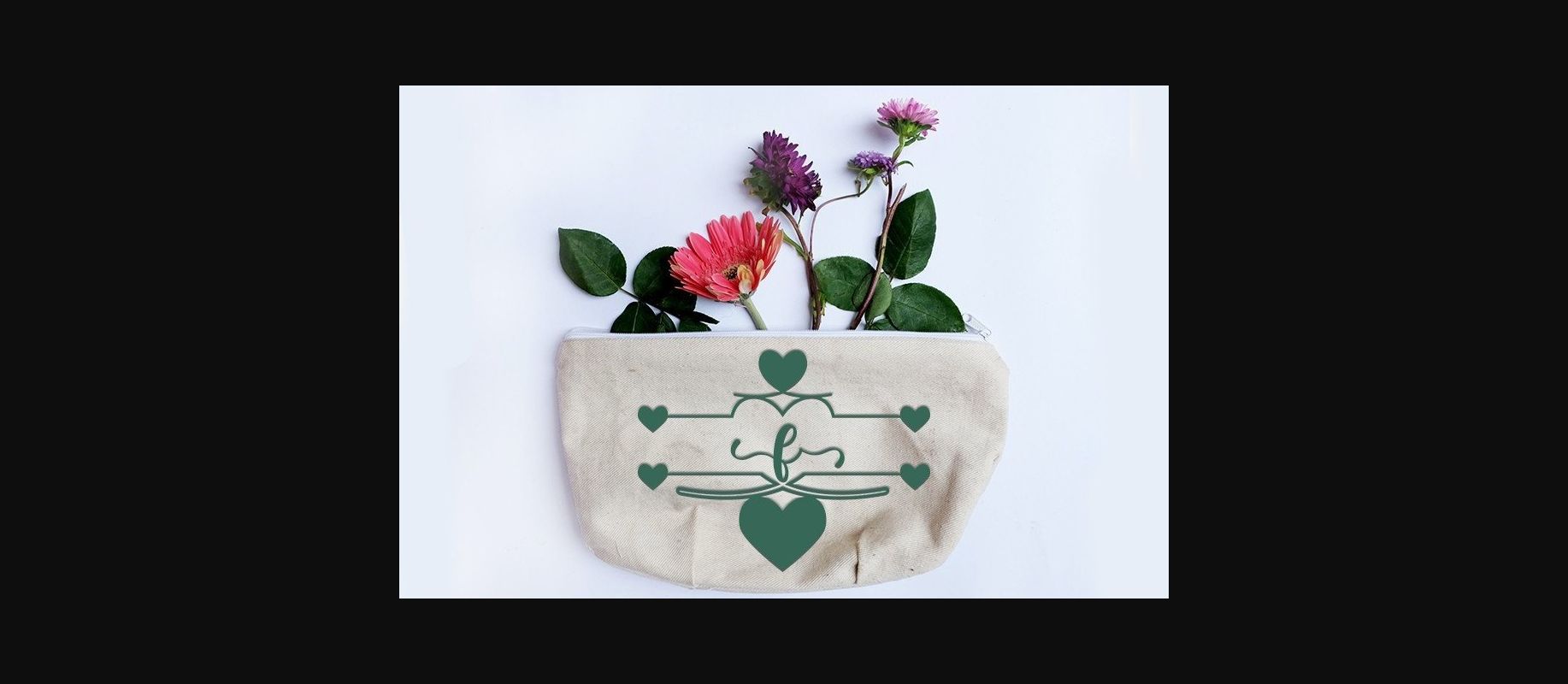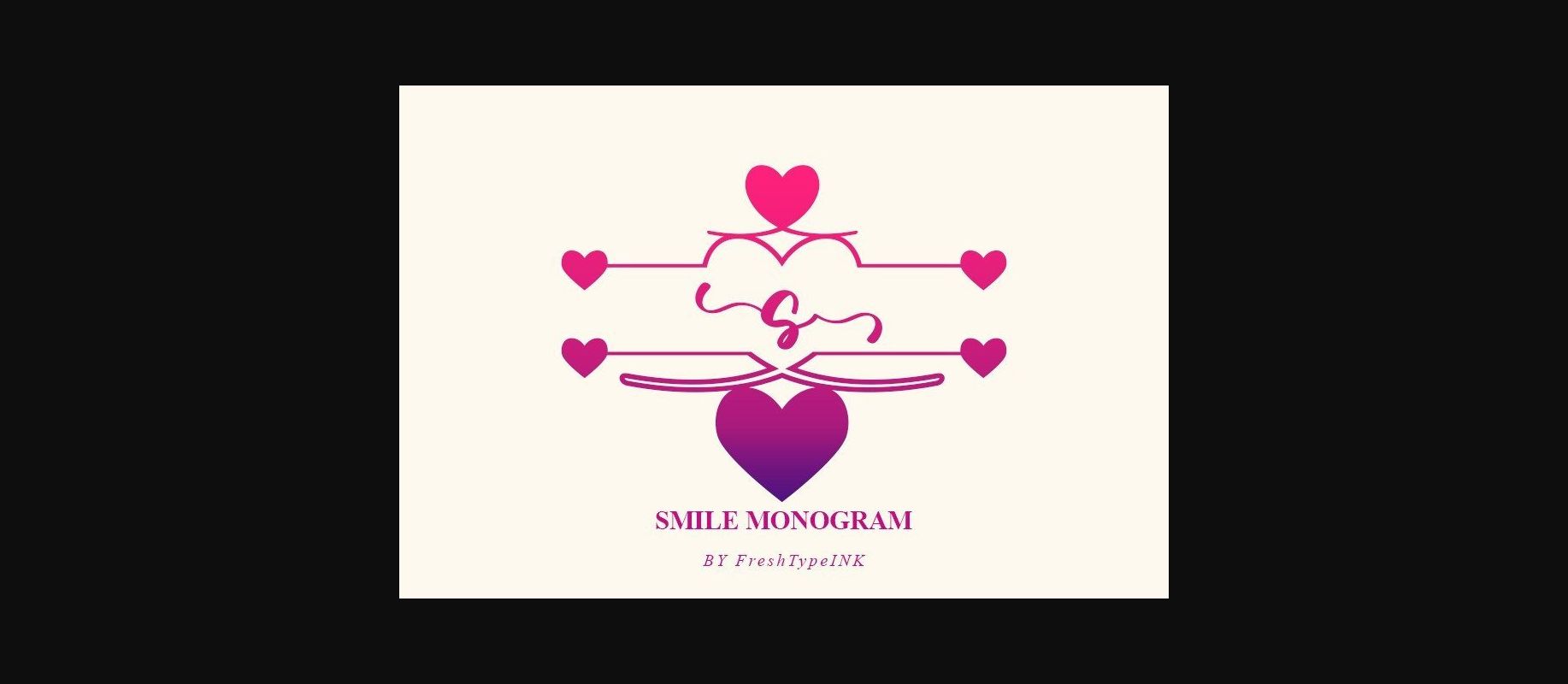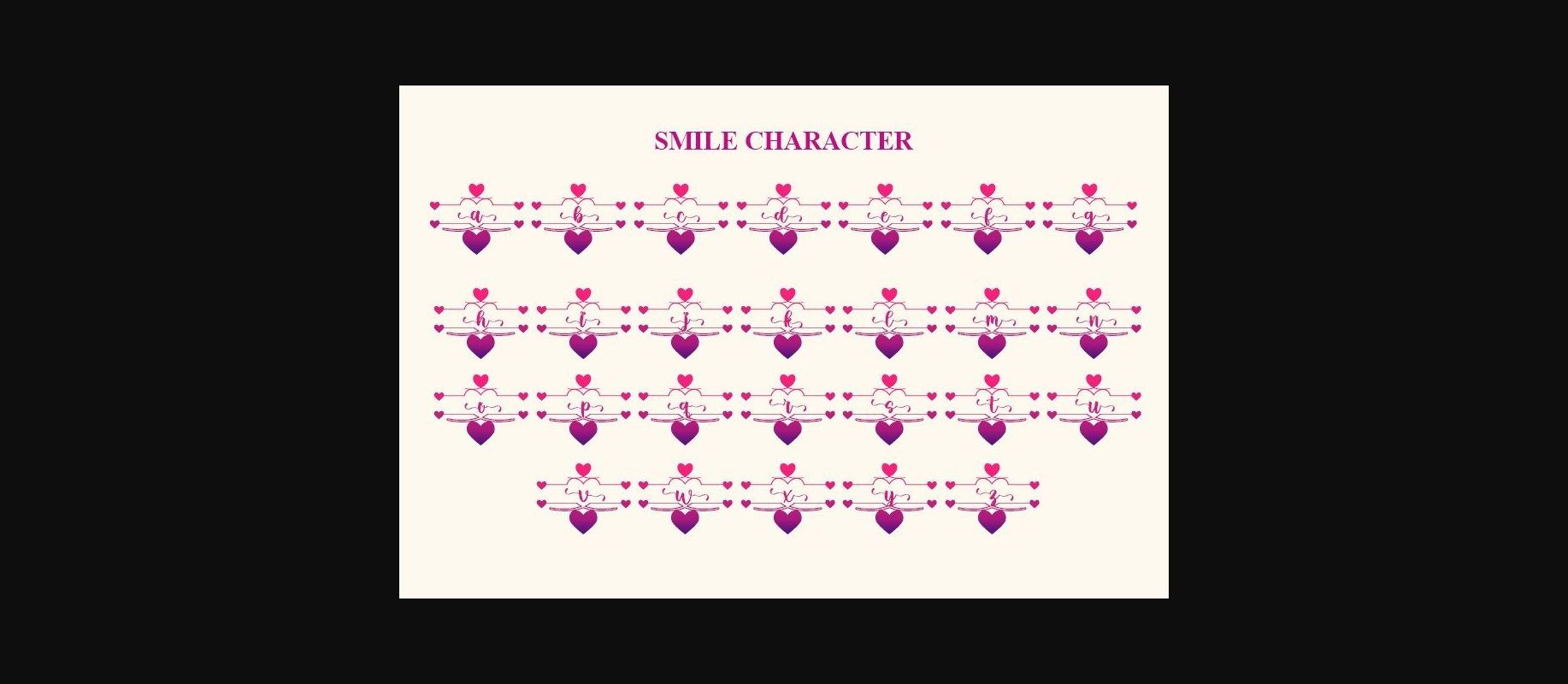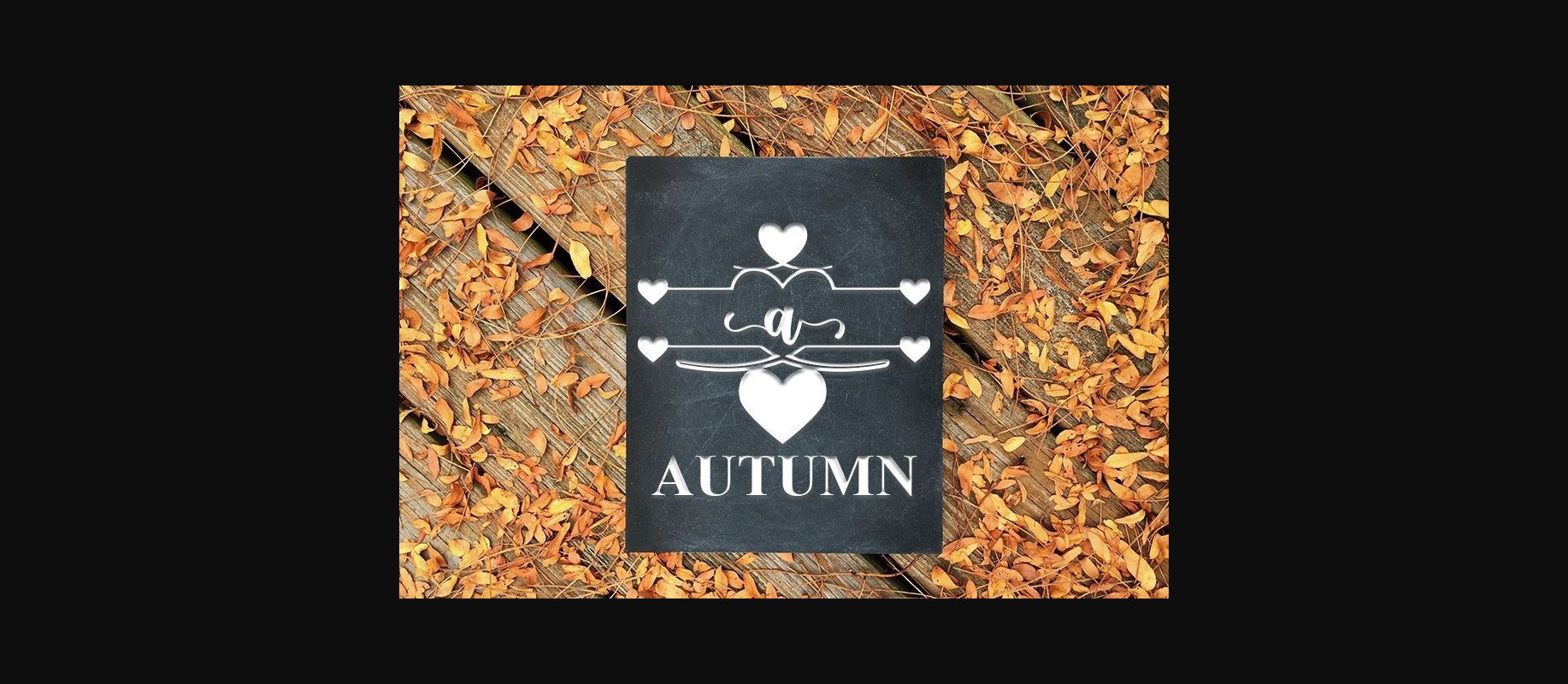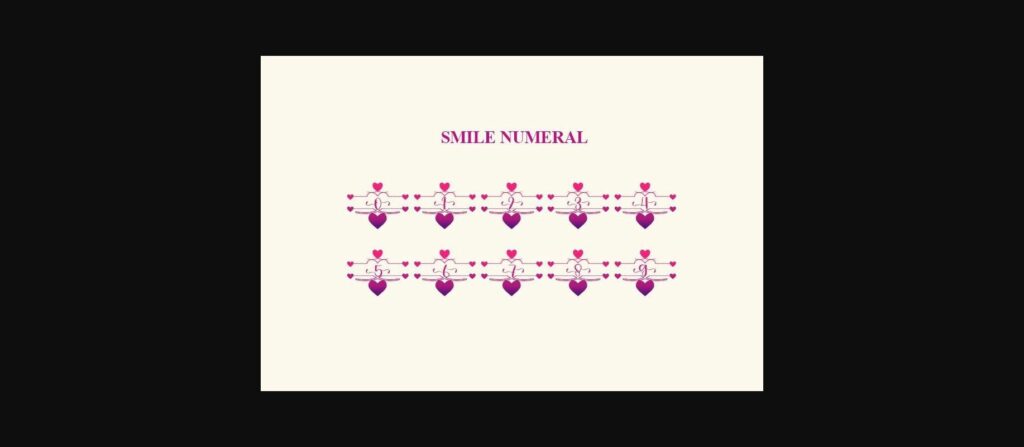
HomeDecorative FontsSmile Monogram Font Decorative Fonts Smile Monogram Font FacebookXPinterestWhatsApp 1 of 7 ... Smile Monogram Font Poster 2... Smile Monogram Font Poster 3... Smile Monogram Font Poster 4... Smile Monogram Font Poster 5... Smile Monogram Font Poster 6... Smile Monogram Font Poster 7... About Smile Monogram Font Smile Monogram is a beautiful and refined monogram font. Classy and modern, it is perfect for logos, branding, invitations, stationery, wedding designs, social media posts, and much more! DOWNLOAD NOW People also explored Jasmine Vintage Font Baby Vintage Font Liniga Font Purple Queen Font Sweet Simple Font Manise Font Fatta Morgana Font Culture Font Glitter Lovers Font 344 0 TagsSmile Monogram Font Previous articleLoved Monogram FontNext articleBlack Coronet Font LEAVE A REPLY Cancel reply Comment: Please enter your comment! Name:* Please enter your name here Email:* You have entered an incorrect email address! Please enter your email address here Website: Save my name, email, and website in this browser for the next time I comment. Personal Use Free Relic Island 2 Personal Use Free Read more about this font Cloudy Night Personal Use Free Read more about this font Coffete Personal Use Free Read more about this font Almonte Personal Use Free Read more about this font BLOG Free Fonts Risk: Why Free Fonts Can Be Dangerous for Designers Free Fonts Risk: Why Free Fonts Can Be Dangerous for Designers Using free fonts is a common practice in web and graphic design. However, the... Best Fonts for T-Shirt Design – Top 2025 Picks Using Fonts in Digital Marketing: Tips to Strengthen Your Brand Identity The 10 Best Handwriting Fonts to Add Personality to Your Designs